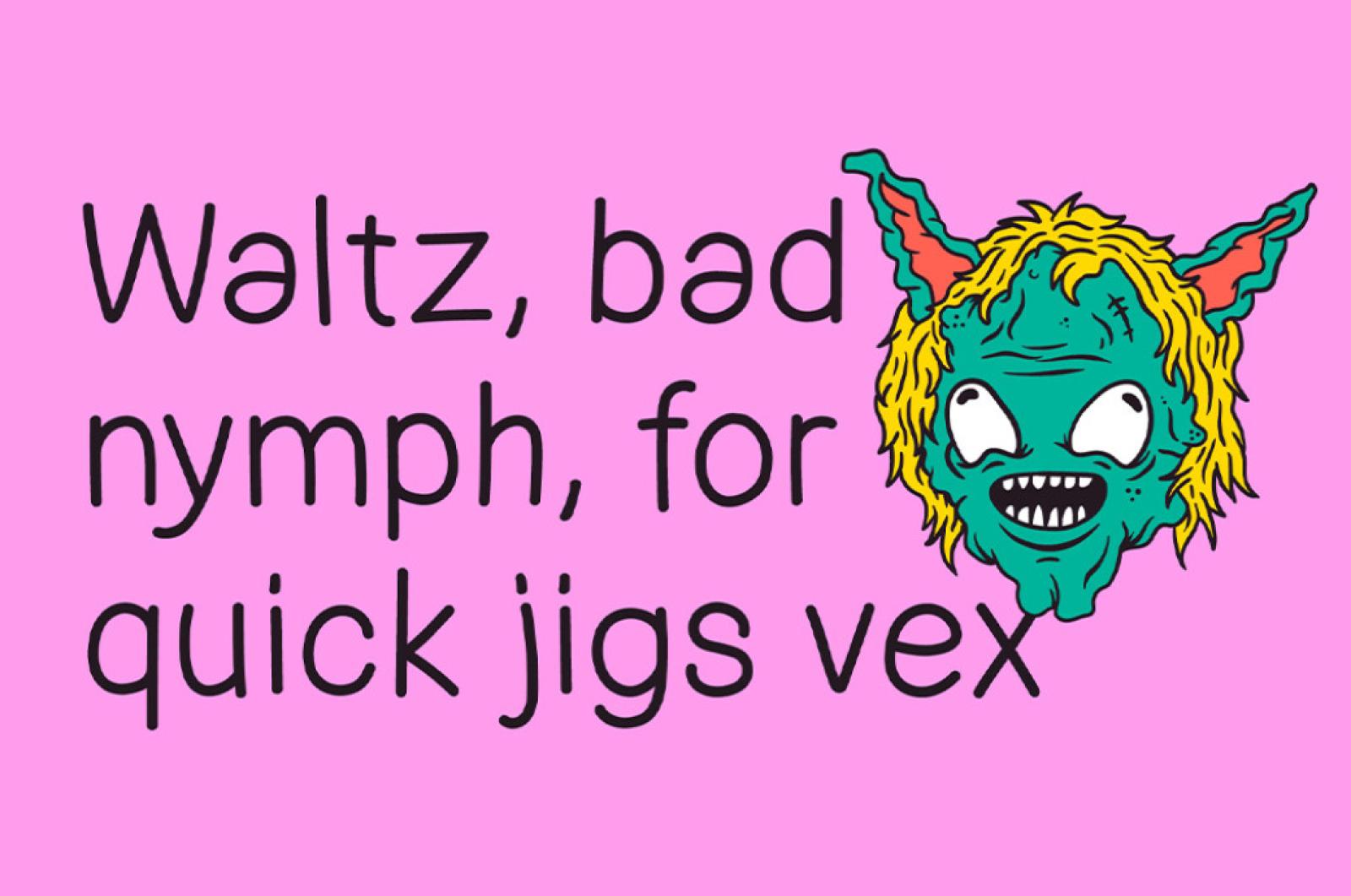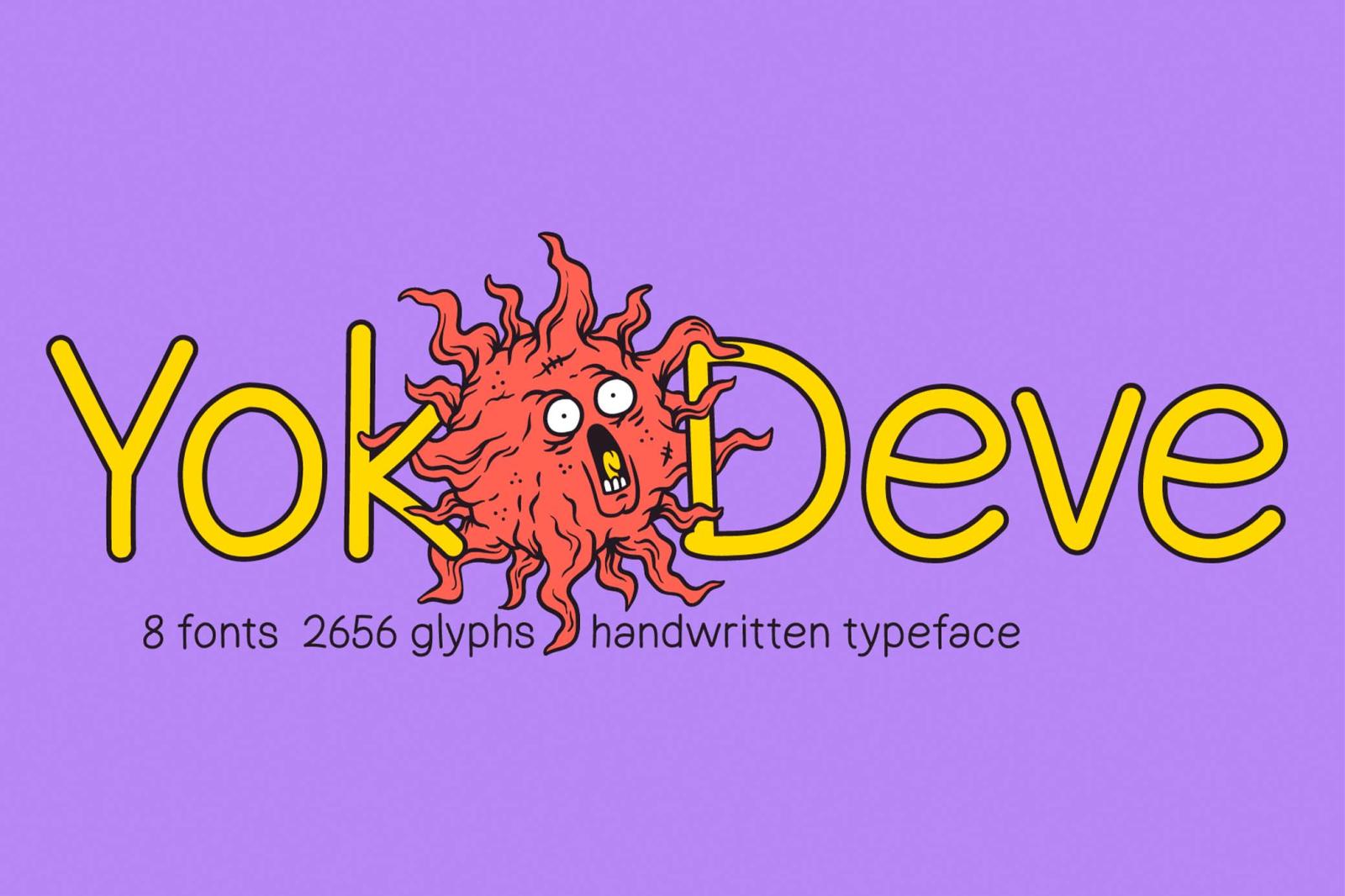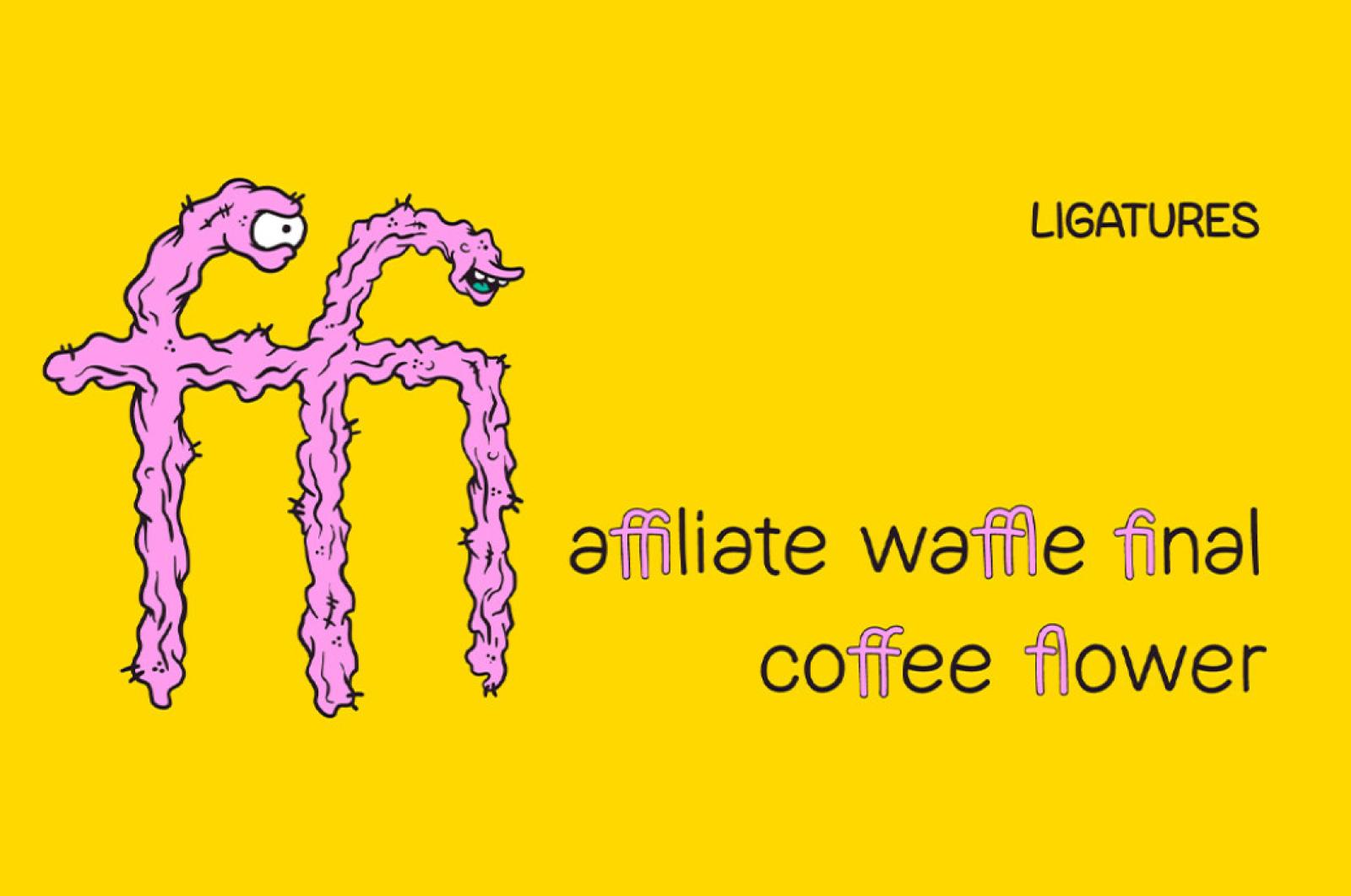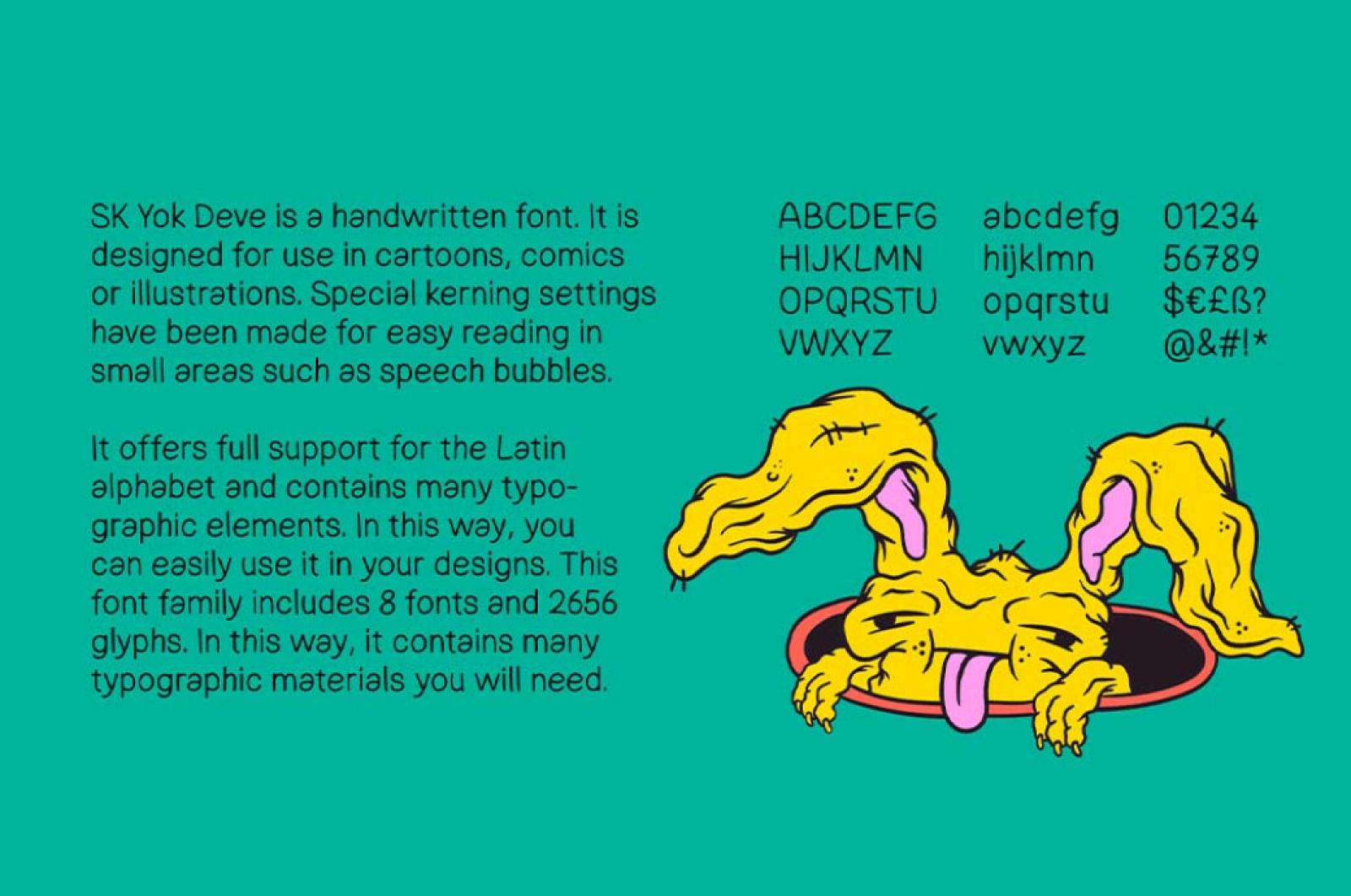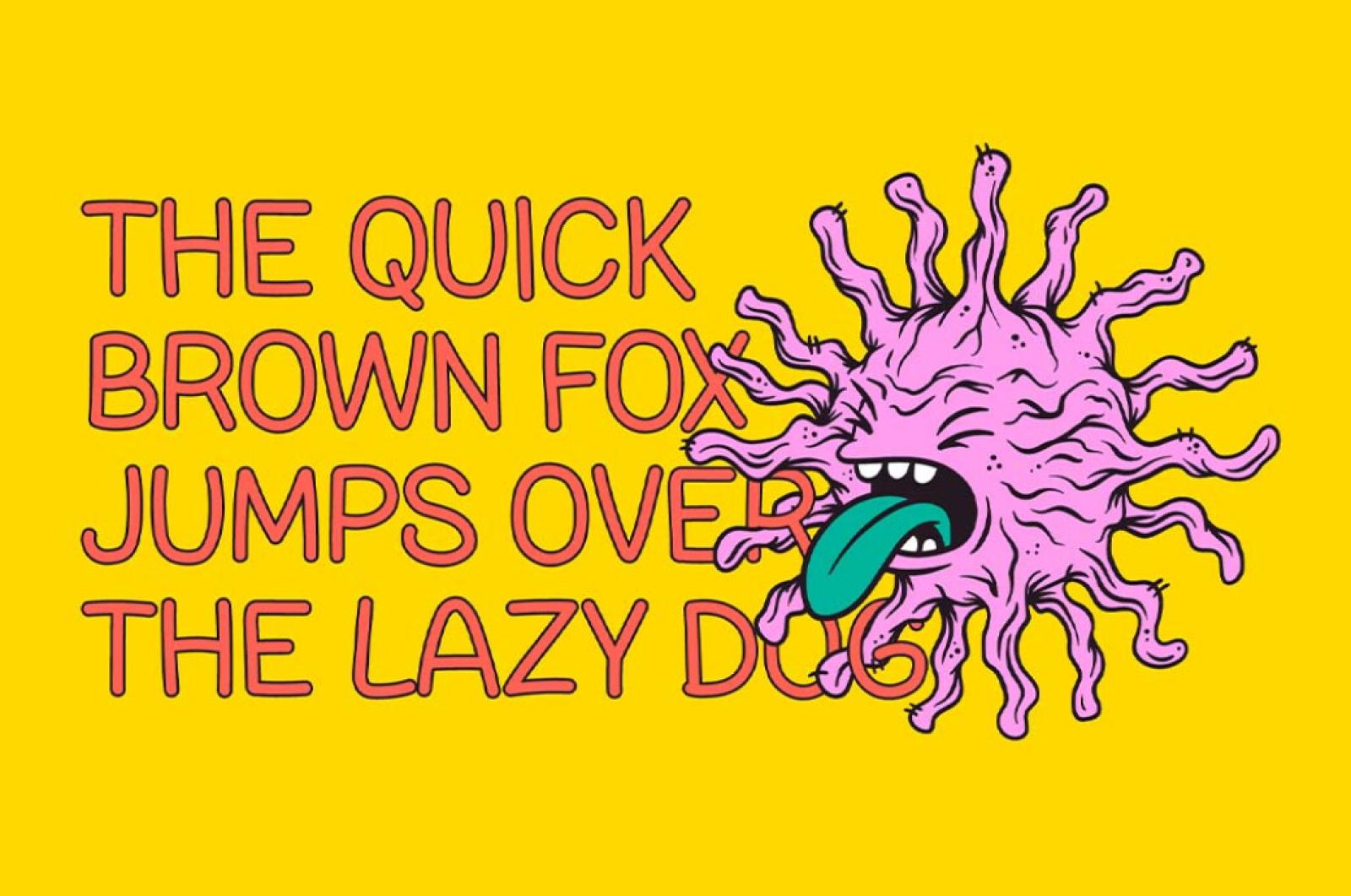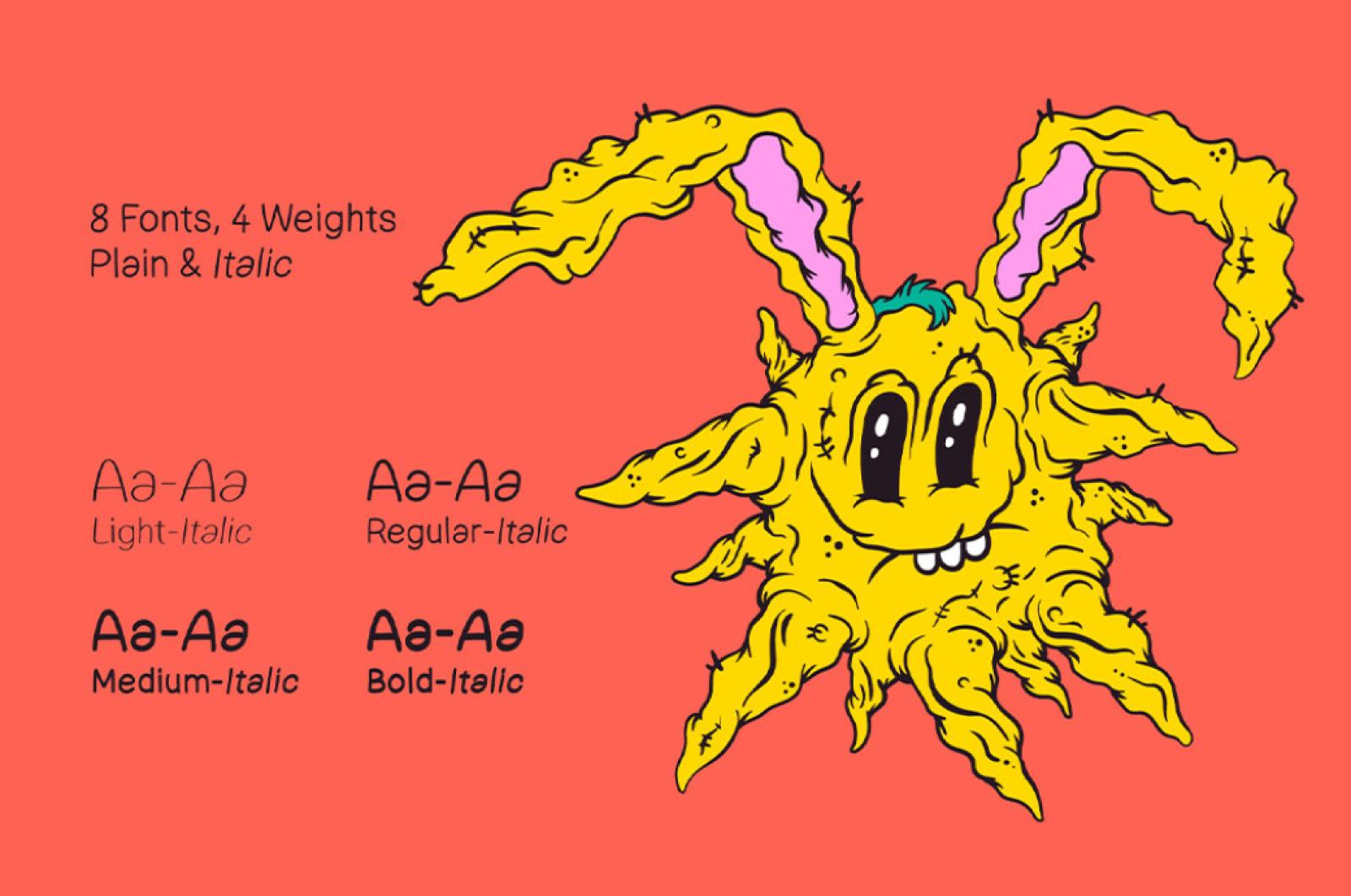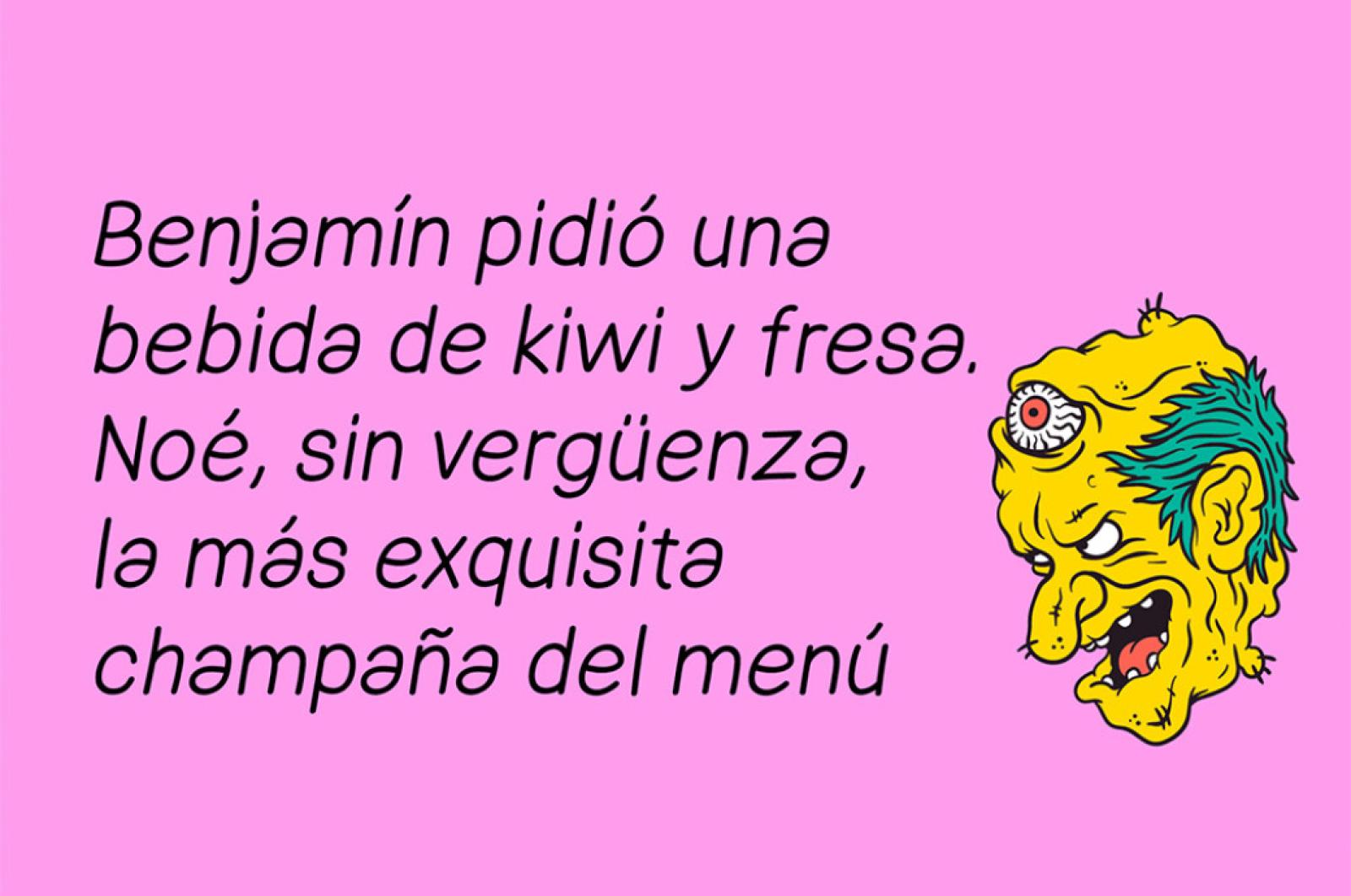
SK Yok Deve Font
SK Yok Deve is a handwritten font designed for use in cartoons, comics, or illustrations. Special kerning settings allow easy reading in small areas, such as speech bubbles.
SK Yok Deve offers full support for the Latin alphabet and contains many typographic elements. In this way, you can easily use it in your designs. This family includes 8 fonts and 2656 glyphs, from regular upper and lowercase characters to symbols and punctuation.